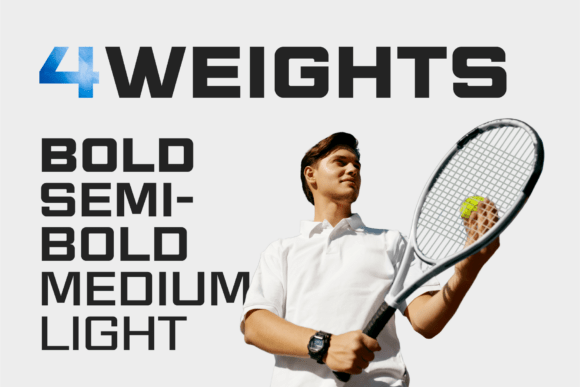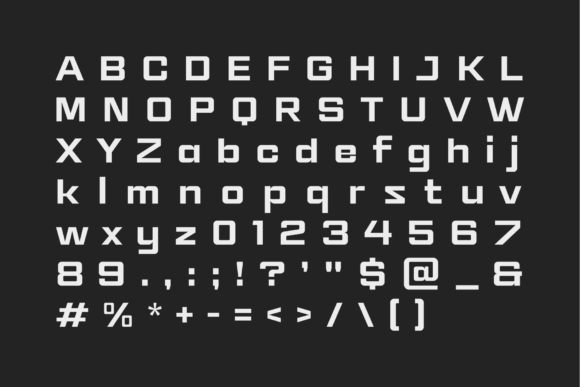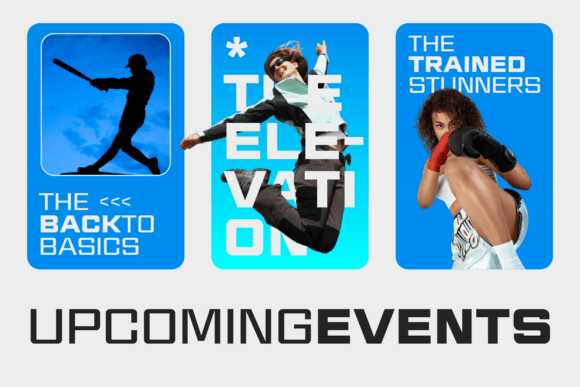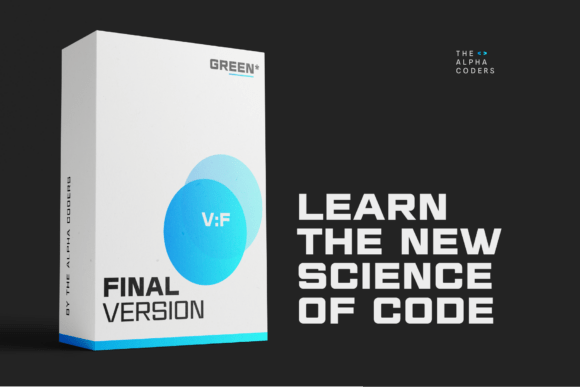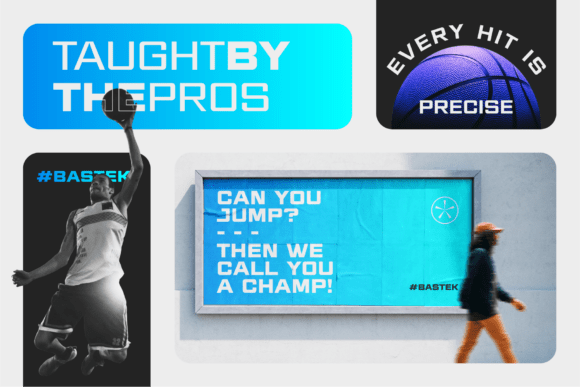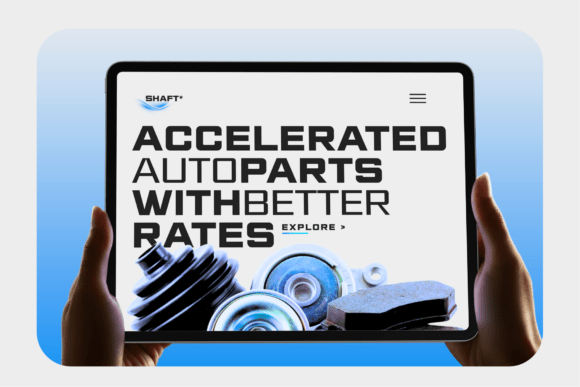
Introducing DiveSans Font: The Ultimate Geometric Sans Serif for Modern Design
In the world of typography, a font can make or break a design. For designers and crafters looking for a clean, geometric sans serif that exudes sportiness and versatility, DiveSans Font is an excellent choice. This modern typeface is designed to deliver impact with clarity, making it perfect for a wide range of applications, from bold headlines and athletic branding to dynamic posters and performance-driven apparel graphics.
Clean, Geometric Design
DiveSans is built on a geometric foundation, characterized by clean, sharp lines and balanced proportions. This design approach ensures that the font remains legible and visually appealing across various uses, including digital and print applications. The font’s geometric structure provides a sense of stability and professionalism, making it an excellent choice for designers seeking a modern, sleek look.
Four Weights for Versatility
One of the standout features of DiveSans is its range of four different weights. Each font maintains the same geometric foundation, ensuring consistency across various uses. This versatility allows designers to use DiveSans for a wide range of applications, from subtle body text to bold headlines. The four weights include:
- Light: Ideal for body text, captions, and other small-scale applications.
- Regular: Suitable for general use, such as articles, blog posts, and presentations.
- Bold: Perfect for headlines, titles, and emphasis.
- Extra Bold: Designed for maximum impact, ideal for large-scale applications, such as billboards and posters.
Sporty and Dynamic
DiveSans is not just a font; it’s a design statement. Its sporty, dynamic aesthetic makes it perfect for athletic branding, sports-related designs, and performance-driven apparel graphics. The font’s energetic feel injects a sense of excitement and movement into any design, making it an excellent choice for designers looking to create bold, eye-catching visuals.
Digital and Print Applications
DiveSans is designed to excel in both digital and print applications. Its clean lines and balanced proportions ensure that the font remains legible on screens and in print. Whether you’re designing for:
- Web and mobile applications
- Print materials, such as brochures, posters, and business cards
- Apparel and merchandise, such as t-shirts, hoodies, and stickers
DiveSans delivers impact with clarity, making it an excellent choice for designers seeking a versatile font.
Design Tips and Tricks
To get the most out of DiveSans, here are some design tips and tricks:
- Pair DiveSans with images or graphics that share a similar geometric aesthetic.
- Experiment with different weights and sizes to create visual hierarchy and emphasis.
- Use DiveSans for headlines and titles to add a sporty, dynamic touch.
DiveSans Font is an excellent choice for designers and crafters seeking a clean, geometric sans serif that exudes sportiness and versatility. With its four different weights, clean lines, and balanced proportions, DiveSans delivers impact with clarity across various uses. Whether you’re creating bold headlines, athletic branding, dynamic posters, or performance-driven apparel graphics, DiveSans is the perfect font to elevate your design.